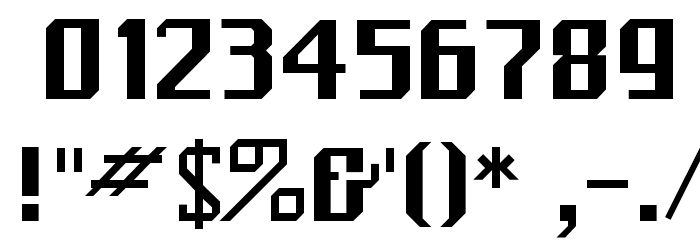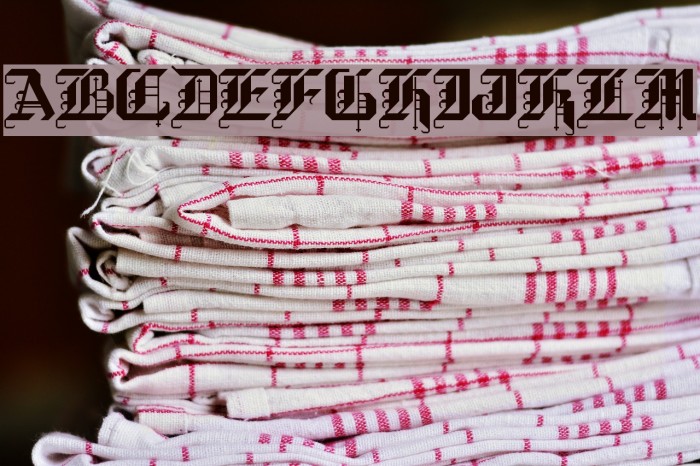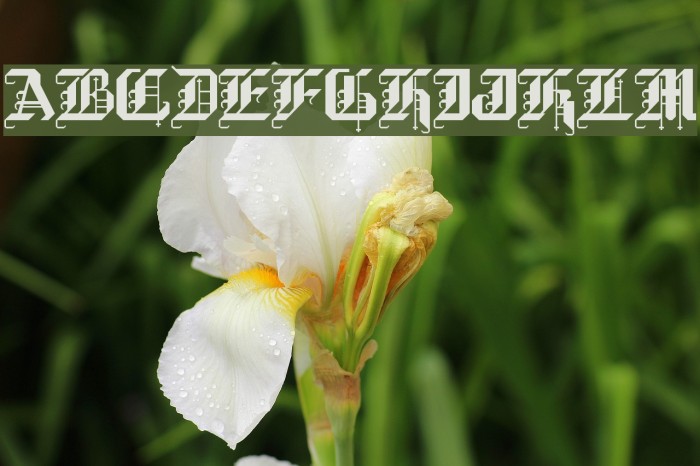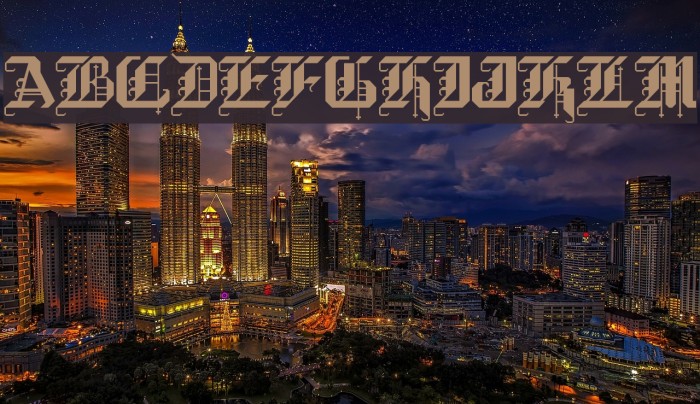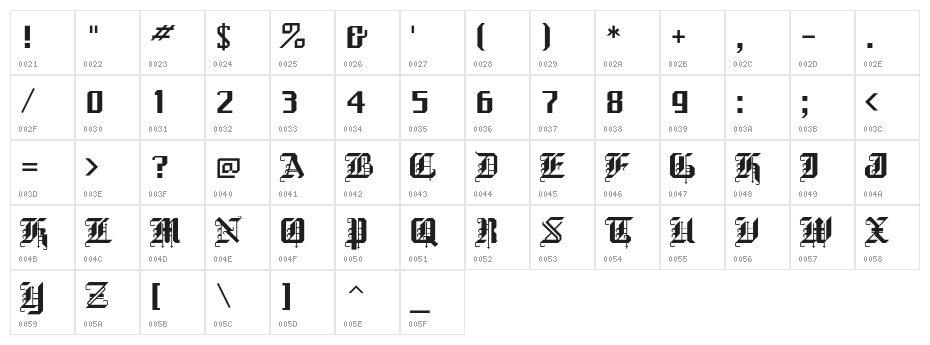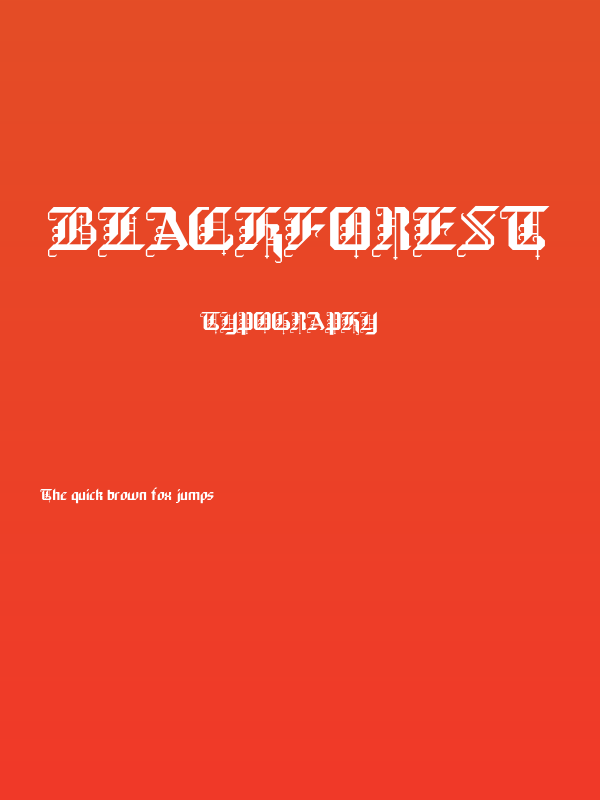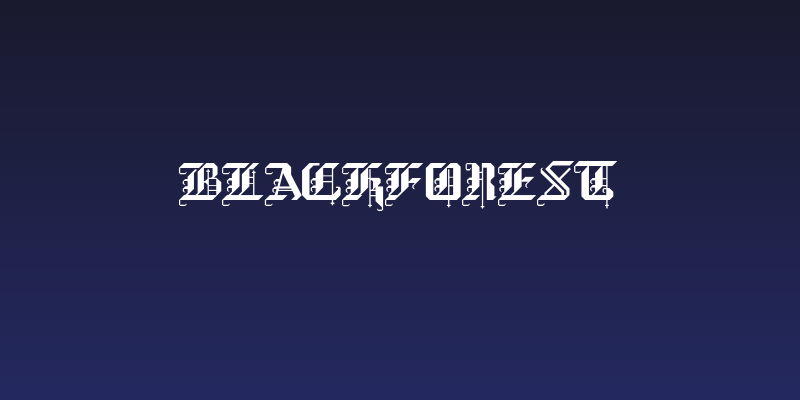
BlackForest Font
This font embodies a traditional Blackletter style, characterized by its intricate and ornate design. The uppercase letters feature elaborate flourishes and sharp angles, reminiscent of medieval script. The lowercase letters maintain a bold and angular appearance, providing a strong visual impact. The numerals are consistent with the overall style, offering a cohesive look. Special characters are designed with the same attention to detail, ensuring they blend seamlessly with the rest of the typeface. This font is ideal for projects that require a historical or gothic aesthetic, making it suitable for branding, posters, or any design that seeks to evoke a sense of tradition and elegance.
A traditional Blackletter font with intricate, ornate design and bold, angular characters.
- Overall Style: Vintage